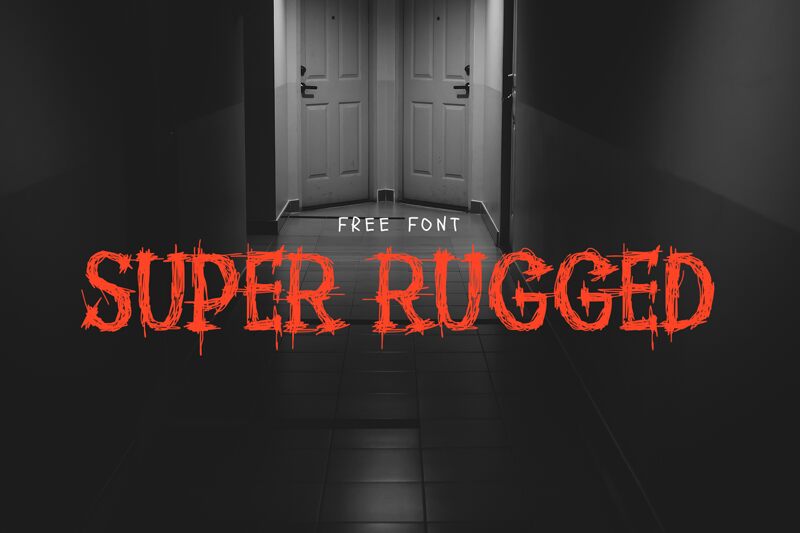
Super Rugged
Super Rugged, a creation of fsuarez913, is a display font that exudes raw intensity and a sense of thrilling unease. Its jagged contours and distressed texture suggest an untamed energy, perfect for invoking the eerie or the avant-garde. This font's bold strokes and sharp edges cut through the mundane, making it ideal for those seeking to make a statement that whispers of danger and rebellion.
Super Rugged's aesthetic is fitting for branding that dares to stand out—think horror movie titles, edgy fashion labels, or any project aiming to leave a lasting impression with an air of mystery. Its unique style ensures it captures attention in posters, book covers, and game interfaces where an element of the terrifyingly beautiful is desired.